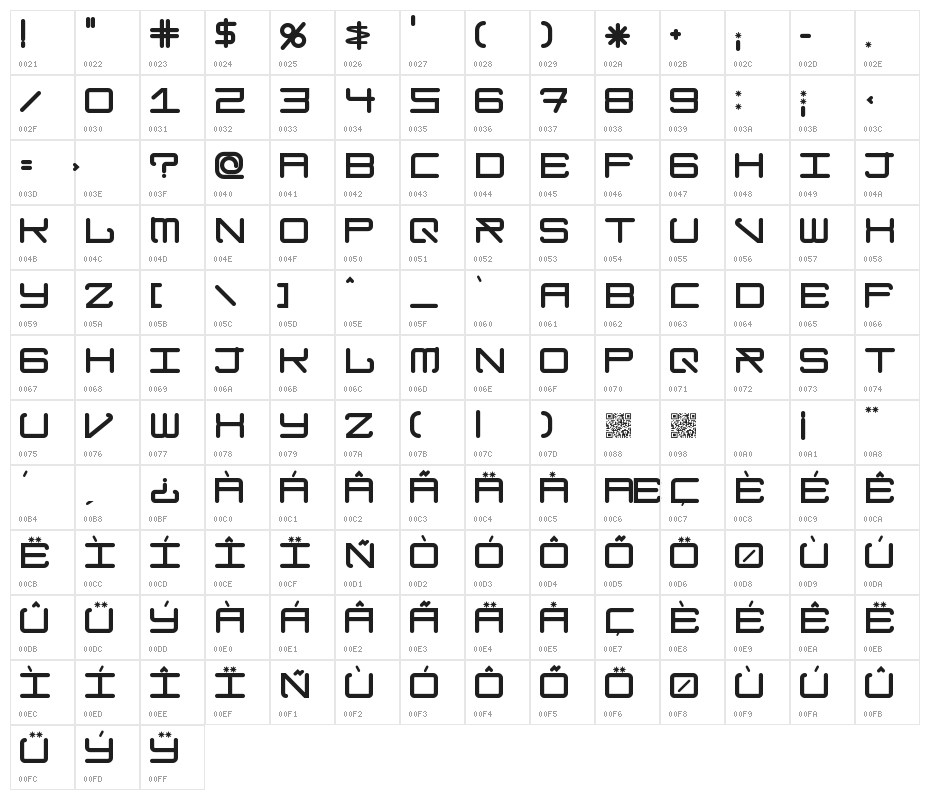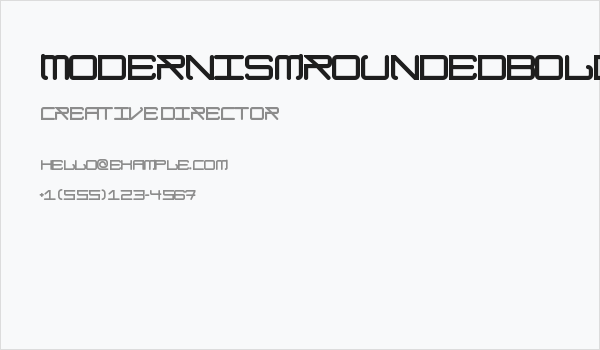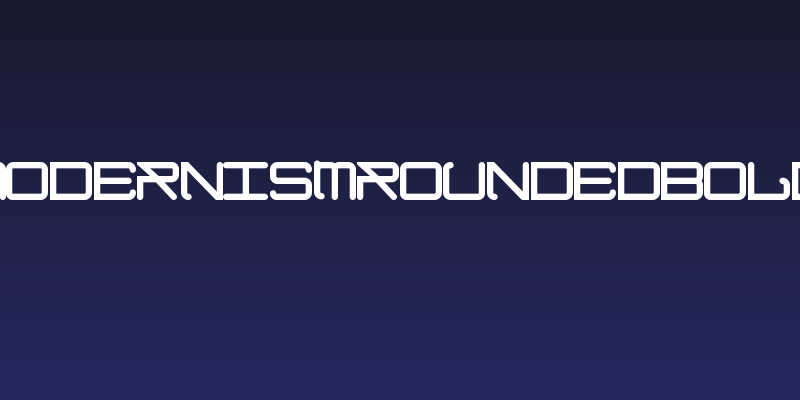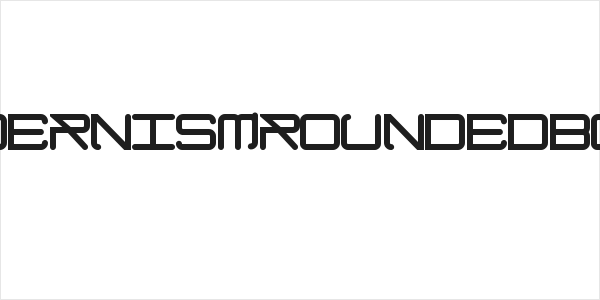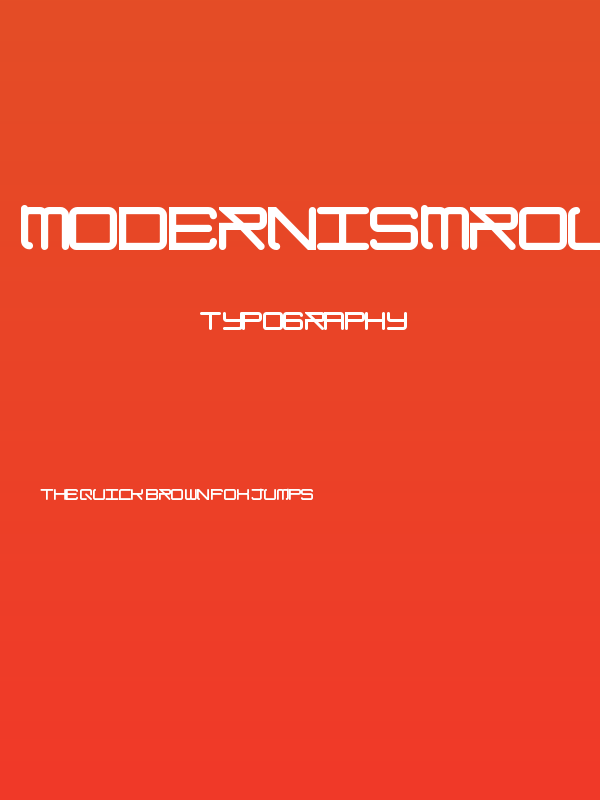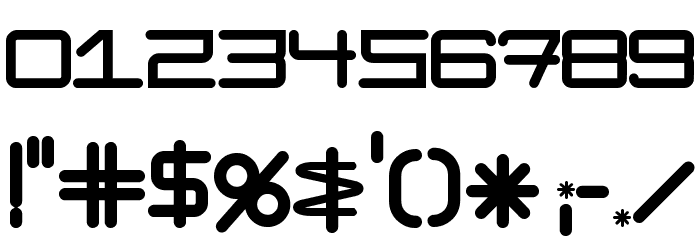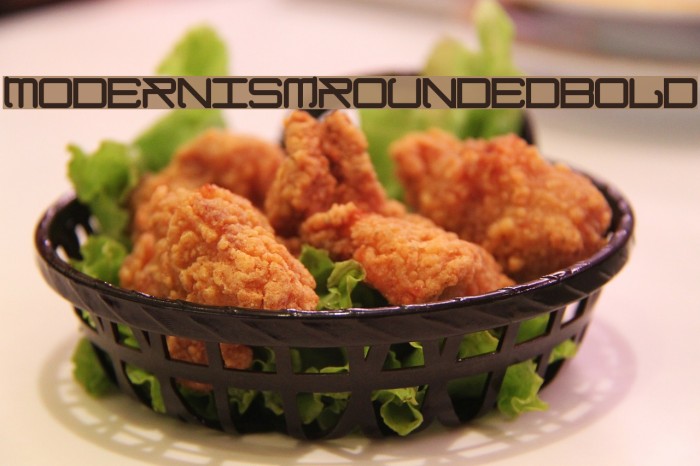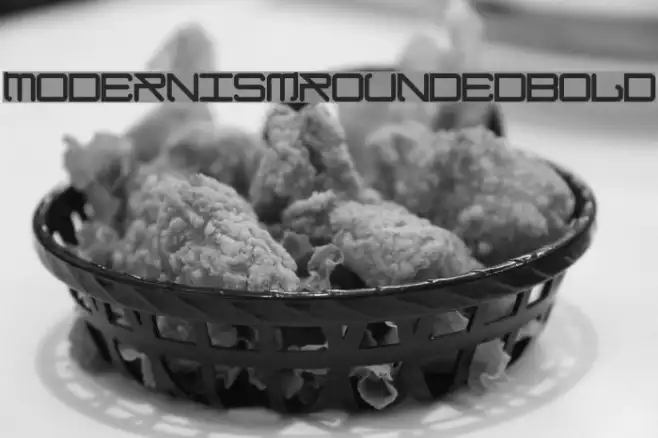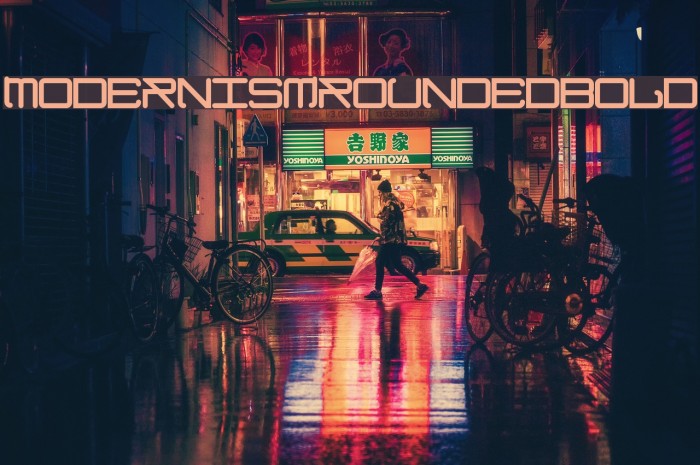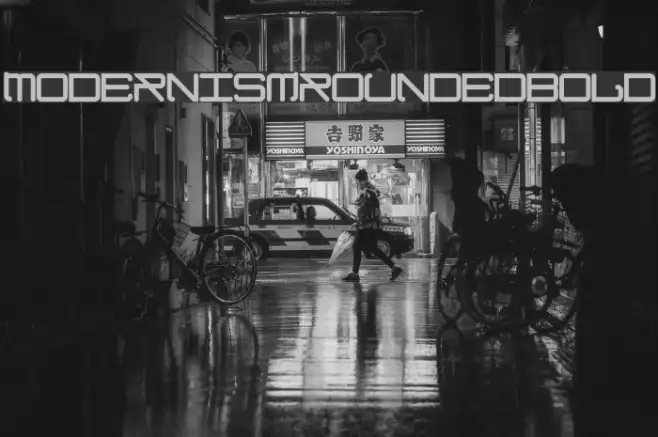
ModernismRoundedBold Font
ModernismRoundedBold Description
This font features a modern, rounded design with bold strokes that create a strong visual impact. The characters are constructed with a geometric precision, offering a futuristic and sleek appearance. The rounded edges soften the overall look, making it approachable yet contemporary. The uniformity in stroke width contributes to a cohesive and balanced aesthetic, suitable for a variety of design applications. The numerals and special characters maintain the same stylistic approach, ensuring consistency across all elements. This font is ideal for projects that require a modern and bold statement.
| Proposed Projects | Ideal for branding, headlines, posters, and digital interfaces that require a modern and bold aesthetic. |